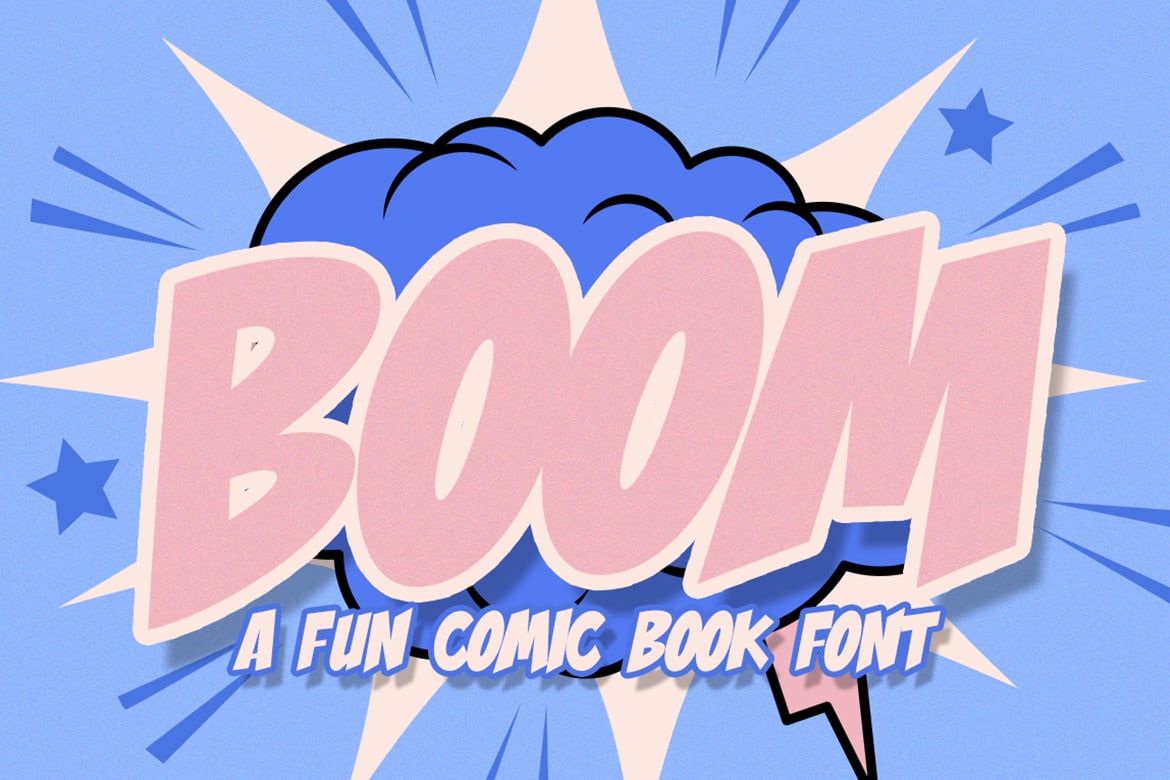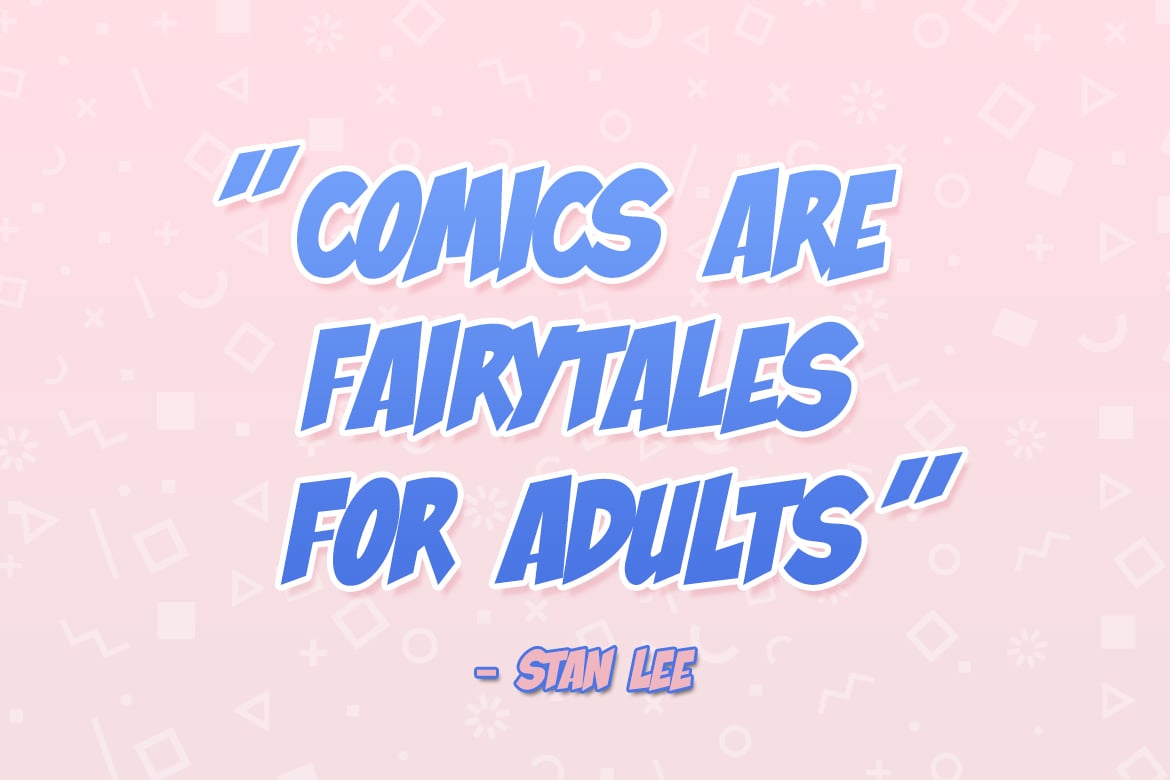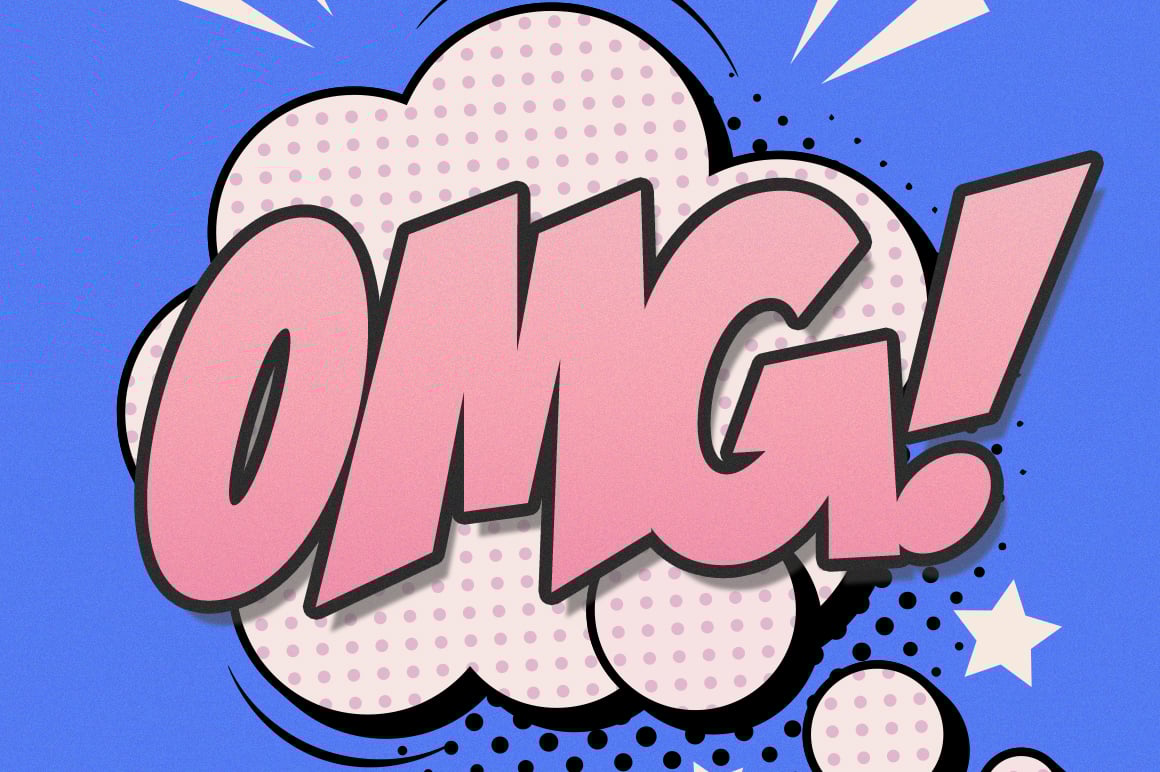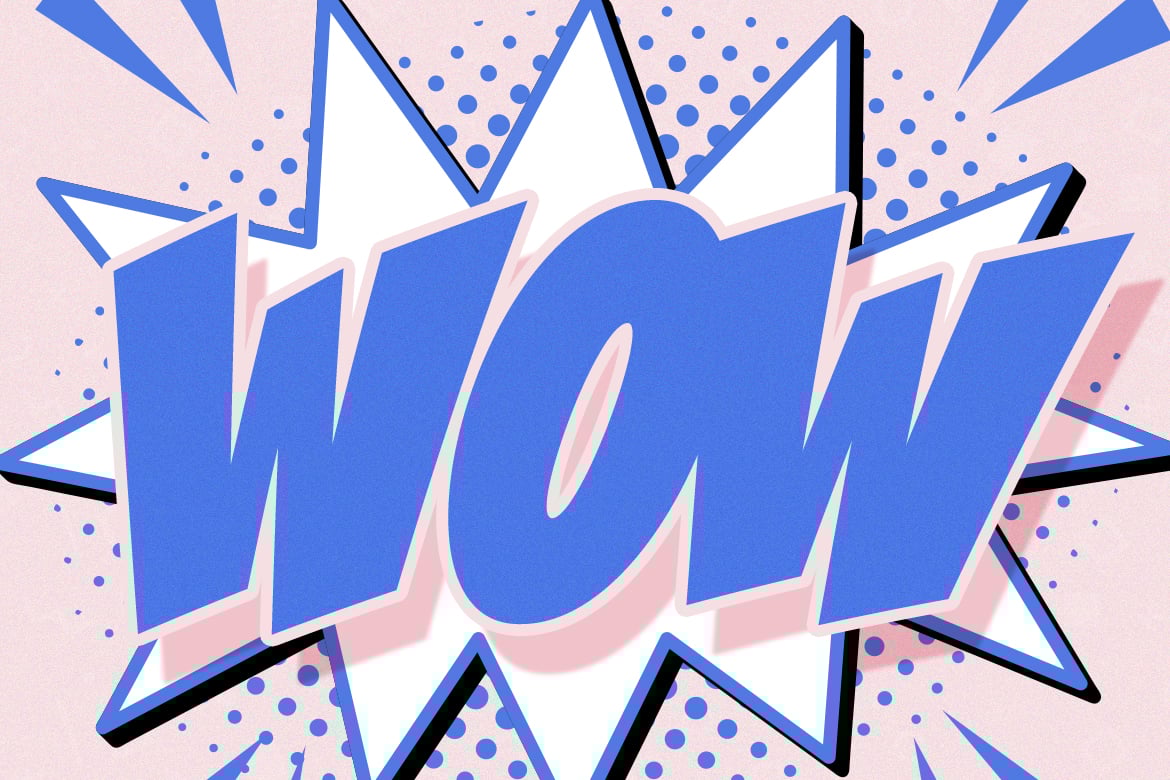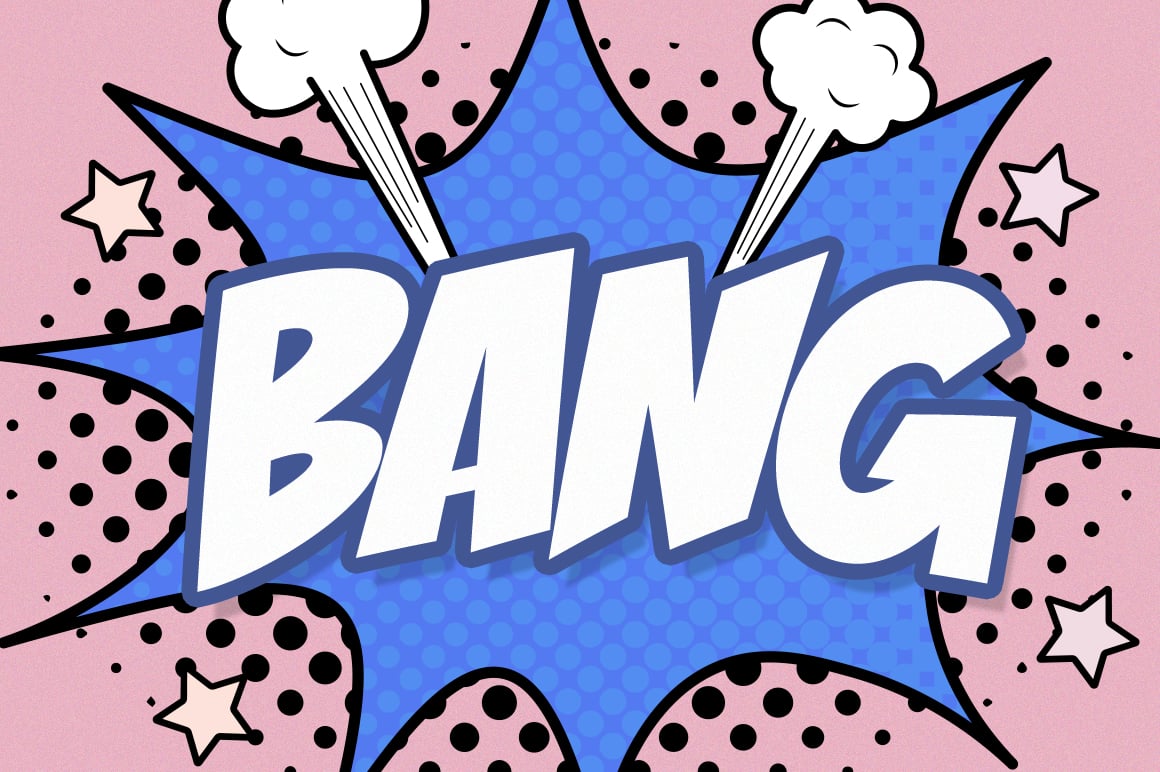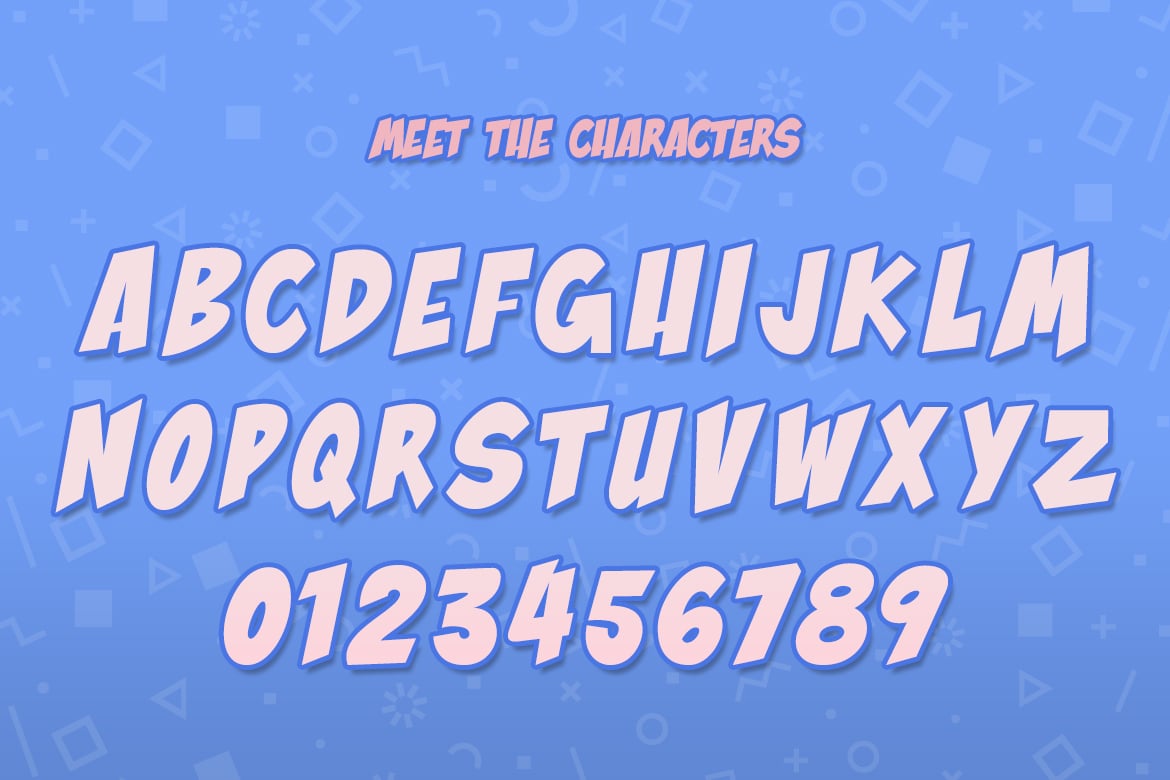
Boom Comic Font
Download the fancy and fabulous BOOM Comic font now! Perfect for adding a little kapow to your designs and it’s thick and juicy so can be easily read at any size!